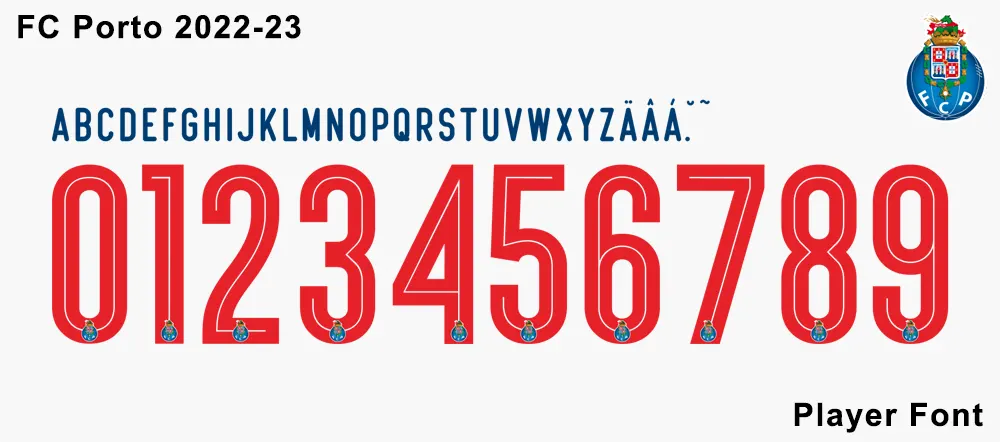
FC Porto 2022-2023 Kit Font
FC Porto 2022/2023 jersey was released, and FC Porto 22-23 Font was also released. This Font will be used in the European Champions League and other domestic and European Cup matches. We provide font files and vector files. The font contains TTF and OTF files. Can be installed and used on PC and MAC platforms.